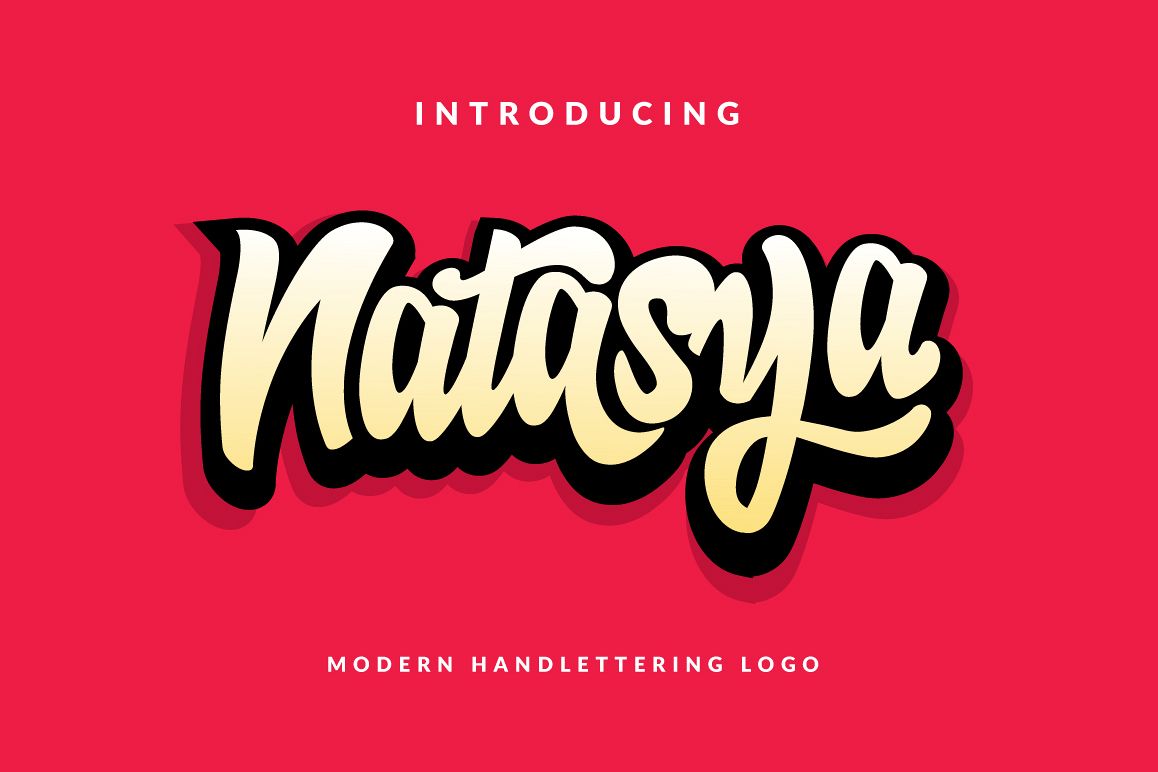
Natasya + Extra
Natasya is bold, playful, modern, and multi-purpose typeface that combines brush lettering with natural handwriting. It is suitable for logo, packaging, headline, poster, t-shirt, etc.
With 401 glyphs and 191 alternatives characters, you can mix and match Natasya to fit your design. The alternative characters divided into several OpenType features such as Ligature, Contextual alternates, stylistic sets, and swash. It can be accessed by using OpenType savvy program such as Adobe Illustrator and Adobe InDesign.